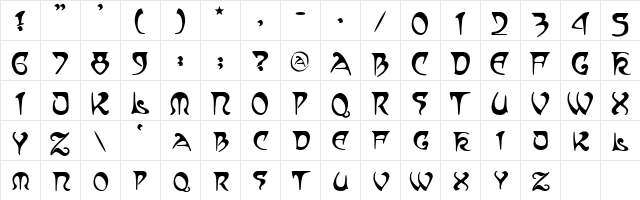
Moravia Medium Free Font
Moravia Medium
Design Context for Moravia
Moravia is a composed and adaptable typeface that performs quietly and consistently across a wide range of design contexts.